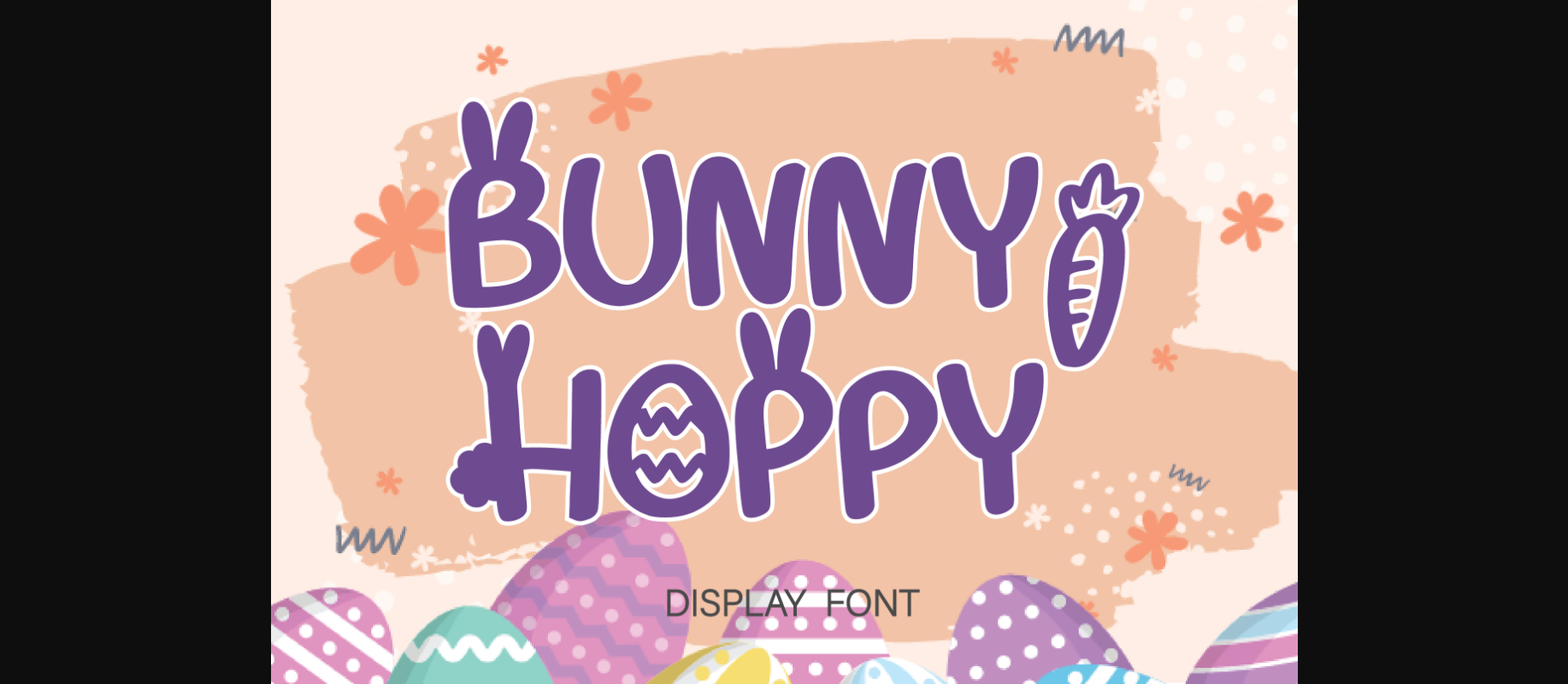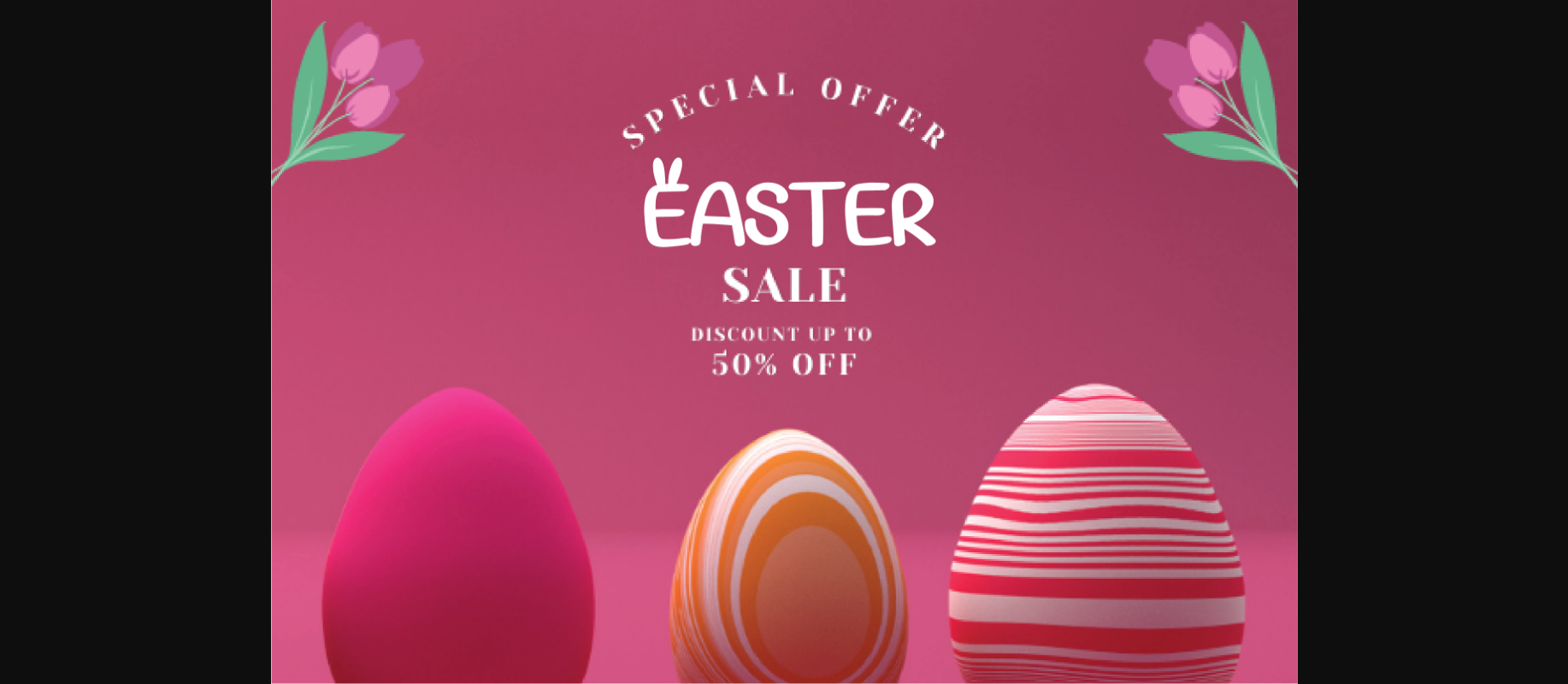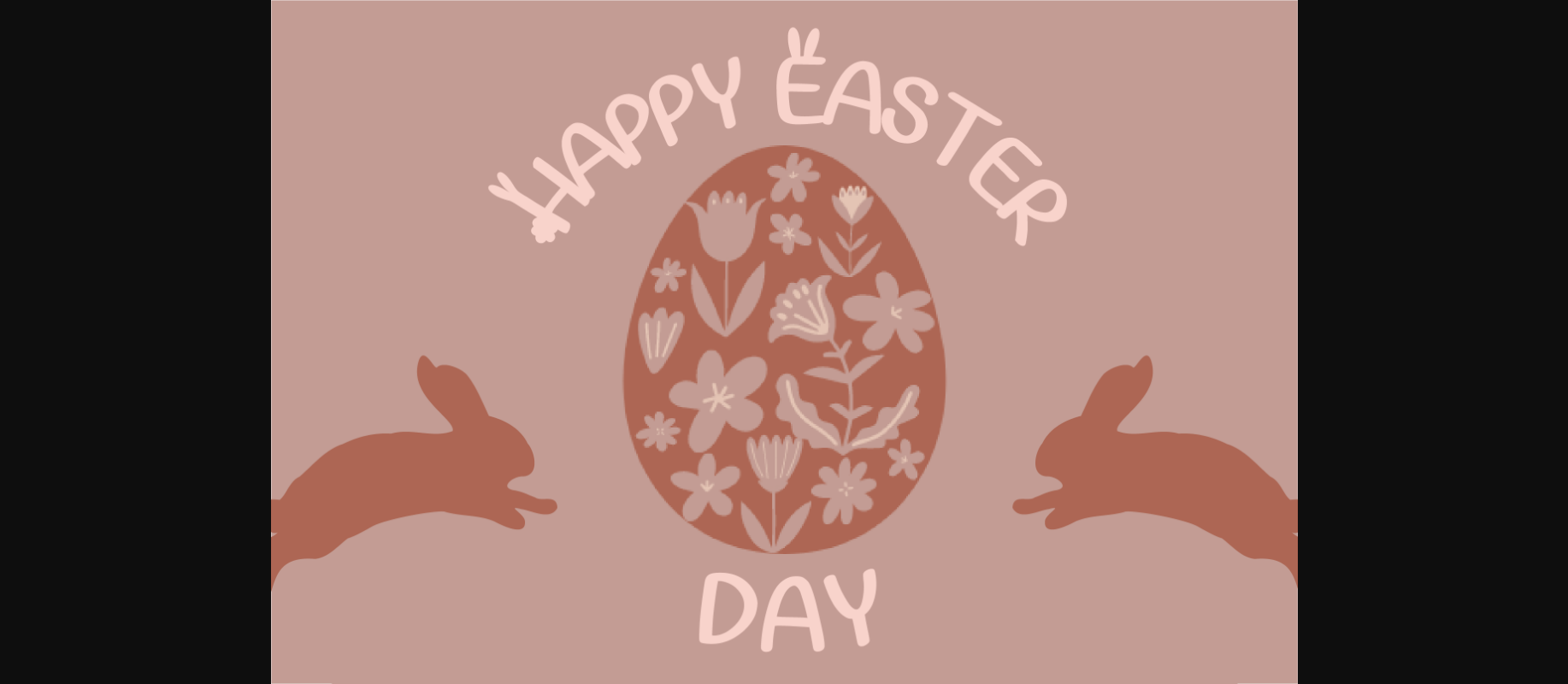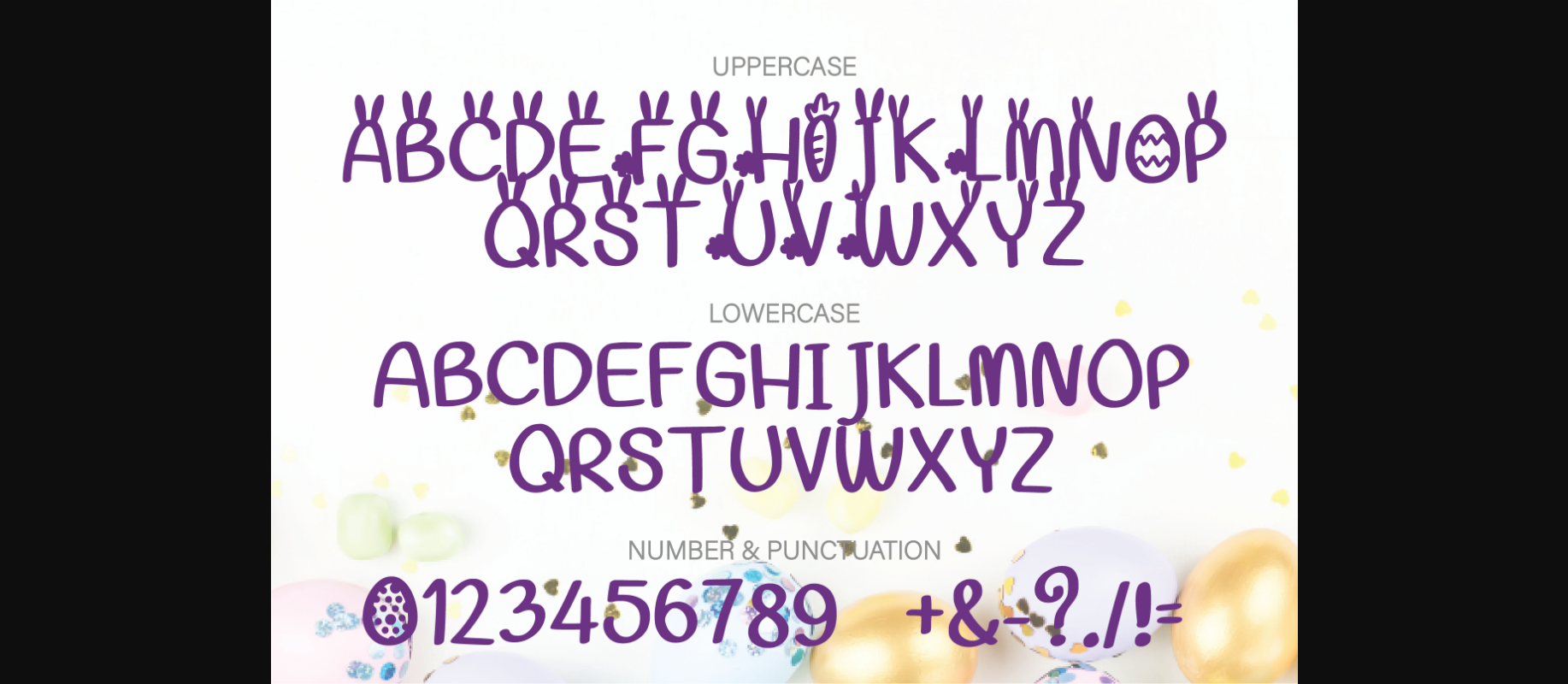
Easter Bunny Hoppy Font
About Easter Bunny Hoppy Font
Bunny Hoppy is a cute and festive decorative font that can make your project be the cutest! Easy to use, not too thin, and not too thick. It is the best choice for creating eye-catching logos, branding materials, quotes, any children’s activity or school project.